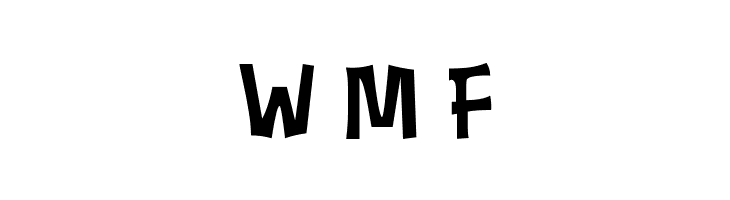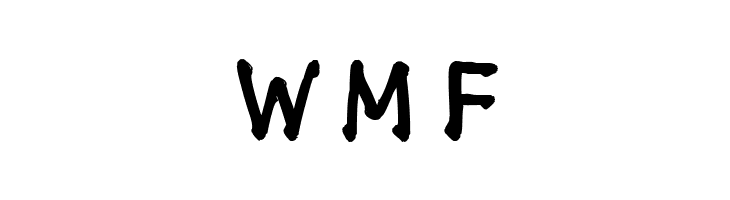
A creepy, jagged font with a horror-inspired, dripping aesthetic.
A spooky, decorative font with a Halloween theme, featuring circular saw borders and crow accents.
A bold, decorative font with quirky, spiral-adorned characters, ideal for spooky themes.
A sharp, angular font with an eerie, dynamic style.
A jagged, gothic-style font with sharp, dramatic characters.
An edgy, angular font with sharp, thorn-like strokes for a haunting appearance.
A creepy, dripping font perfect for horror themes.
A jagged, eerie font perfect for horror-themed designs.
A creepy, scrawled italic font with bold, fluid strokes.
A bold, jagged font with an eerie, hand-carved appearance.
A condensed, eerie font with irregular, jagged letterforms perfect for horror themes.
A bold, jagged font with an eerie, hand-drawn style perfect for horror themes.
A pictorial font using silhouettes of bugs, reptiles, and small animals for each character.
A spooky, dripping font perfect for horror themes.
A bold, jagged font with a horror-themed aesthetic.
A bold, quirky font with a spooky, playful aesthetic and irregular shapes.
A whimsical, hand-drawn font with a quirky, magical style.
A bold, distressed font with a spooky, eerie style.
A bold, jagged font with an eerie, playful style.
A pictorial font featuring silhouettes of creepy-crawly creatures and small animals.
A spooky, playful font with jagged, irregular characters perfect for Halloween themes.
A spooky, dripping font perfect for horror-themed designs.
A bold, irregular font with a spooky, hand-drawn appearance.
A playful, quirky handwritten font with tall, narrow letters and irregular strokes.
A jagged, eerie font ideal for horror themes.
A whimsical and eerie font with playful, hand-drawn characters.
A bold, staggered italic font with a dynamic and edgy style.
A bold, 3D italic font with outlined characters and a dynamic style.
A bold, italic font with jagged, organic shapes and a dynamic style.
A bold, italicized font with a jagged, energetic style.
A bold, jagged font with a spooky, horror-themed design.